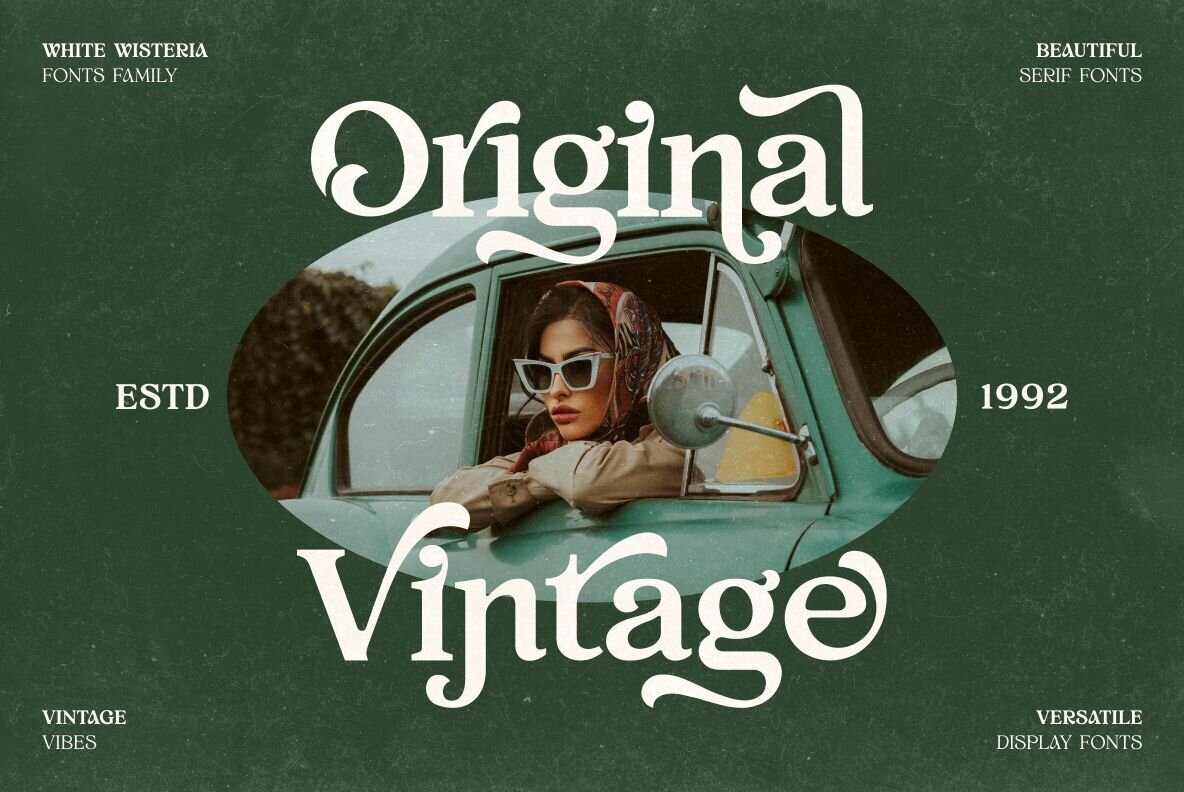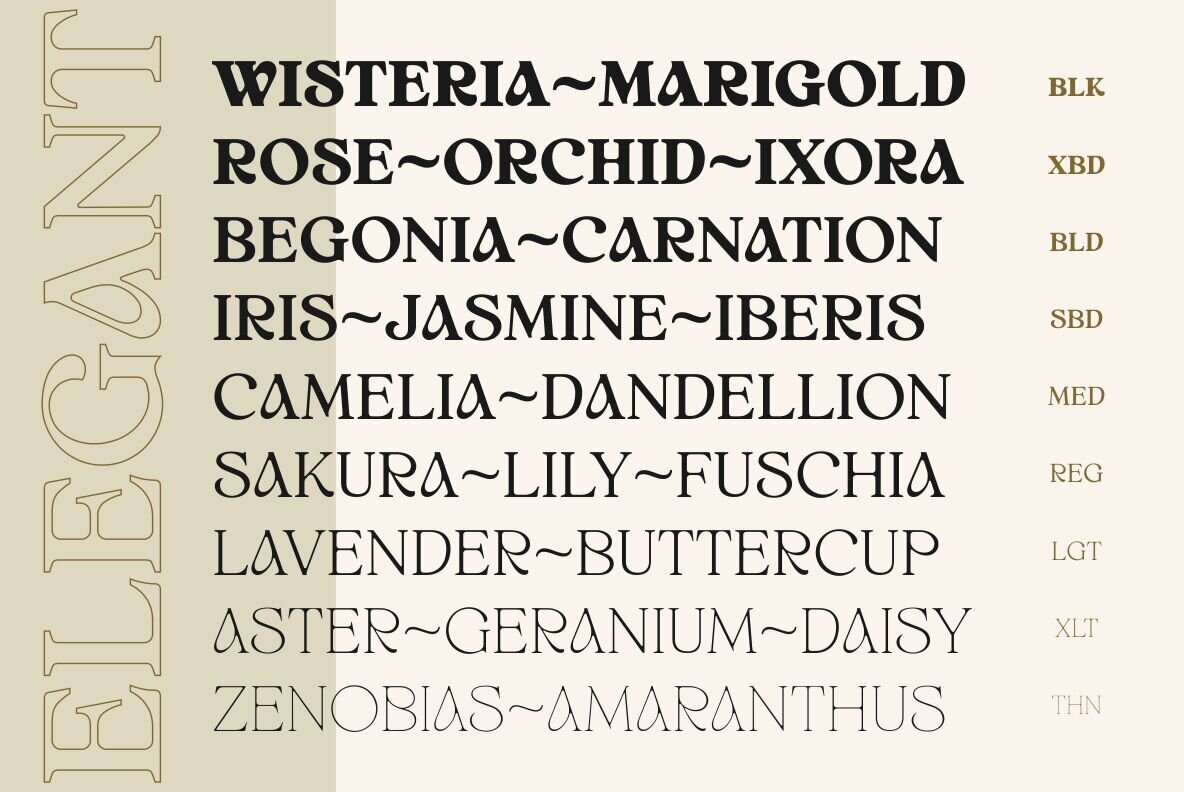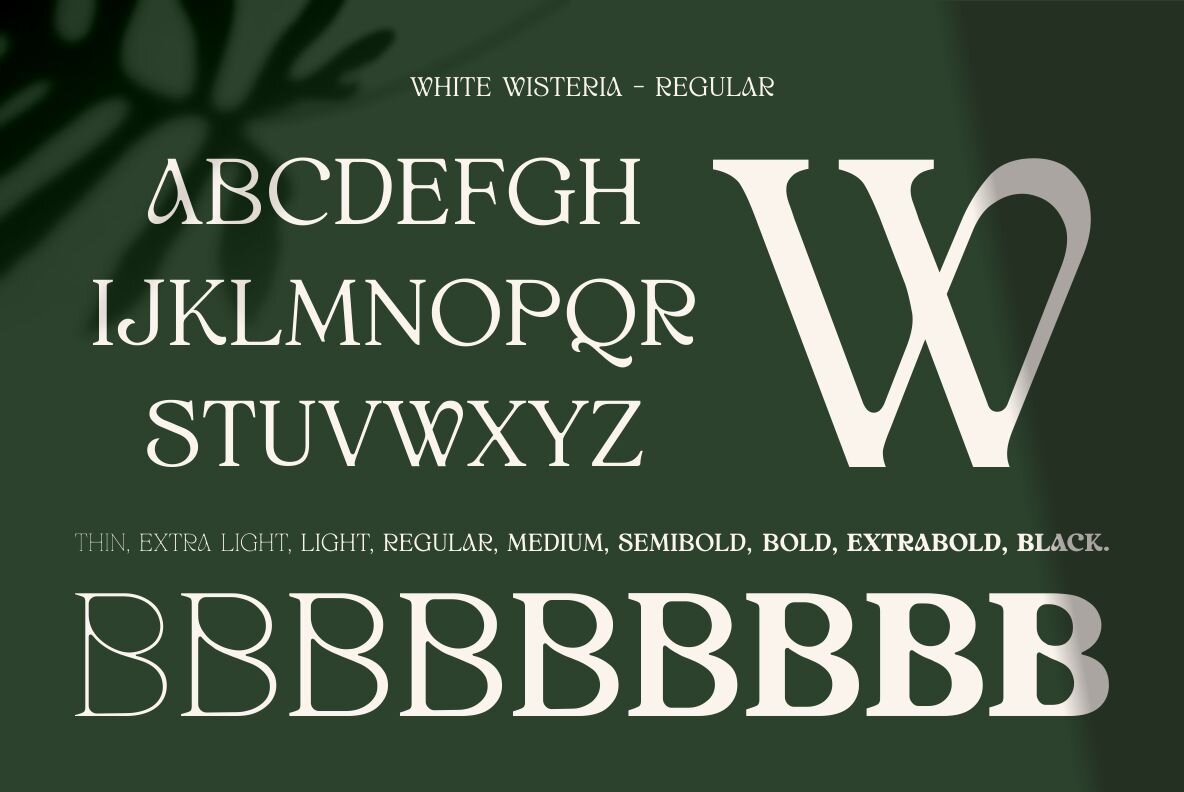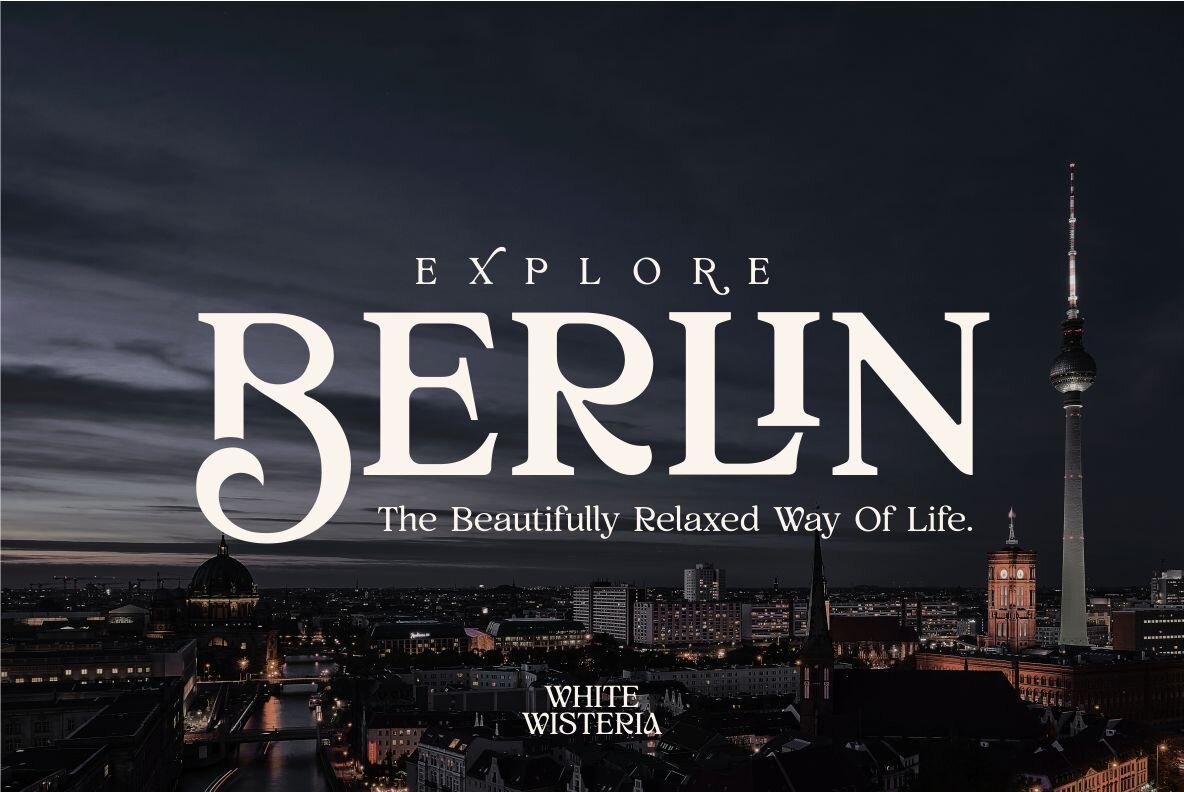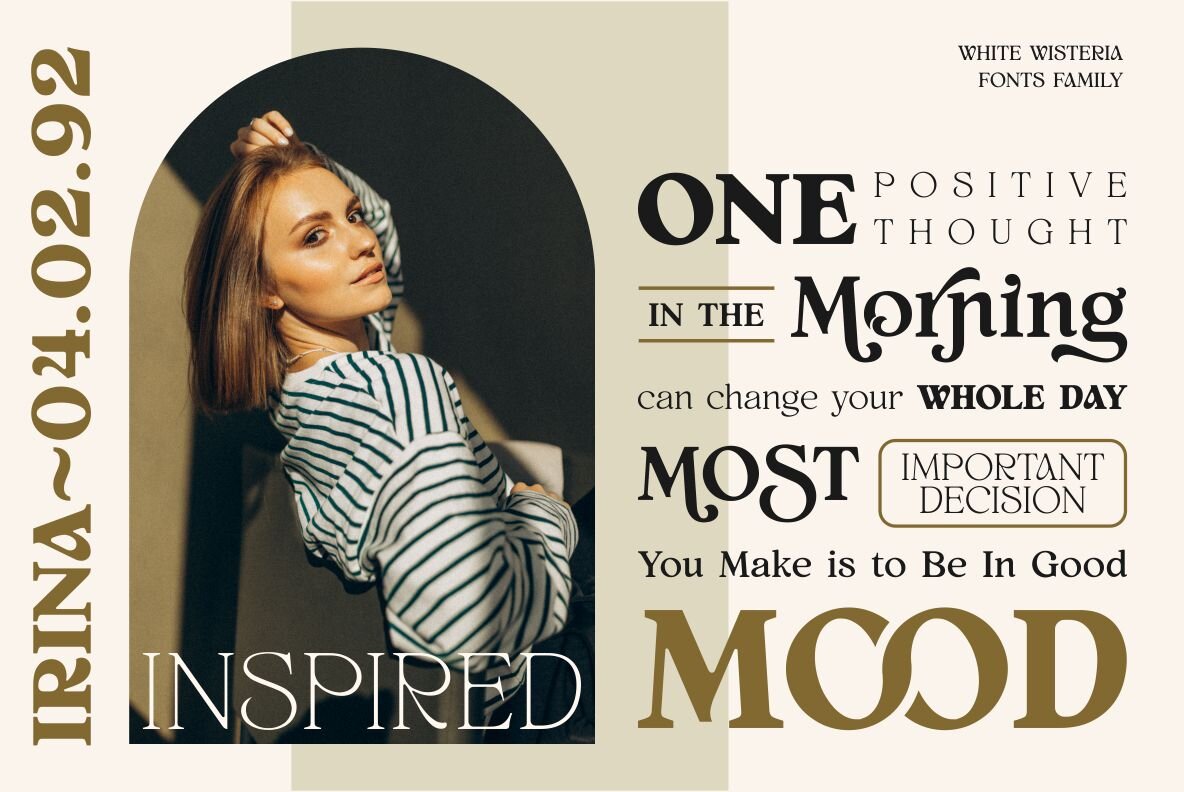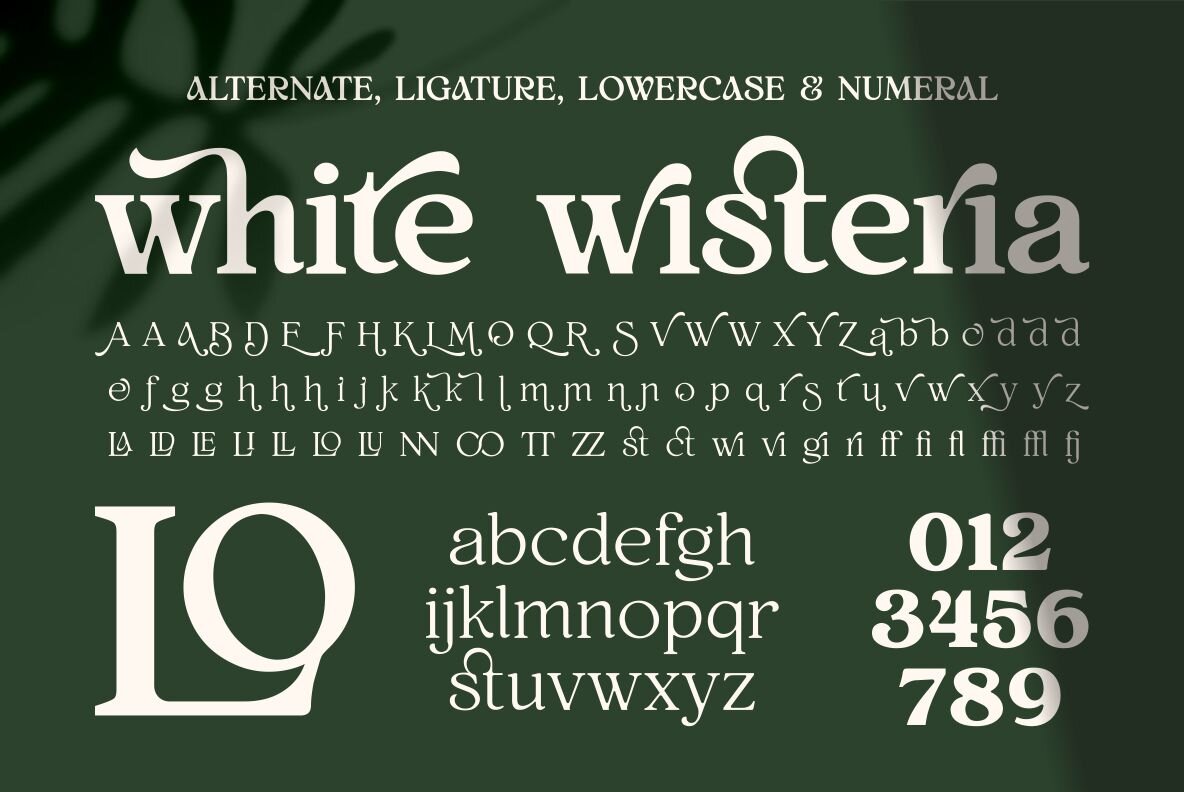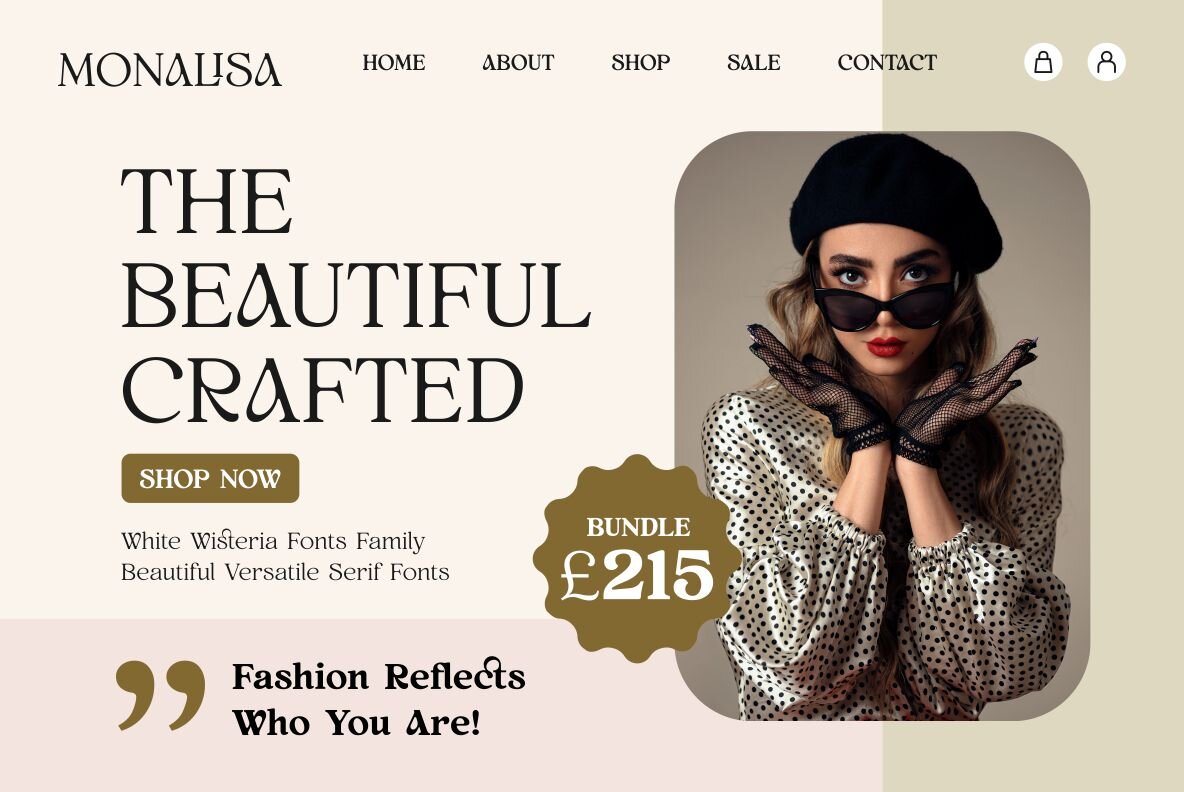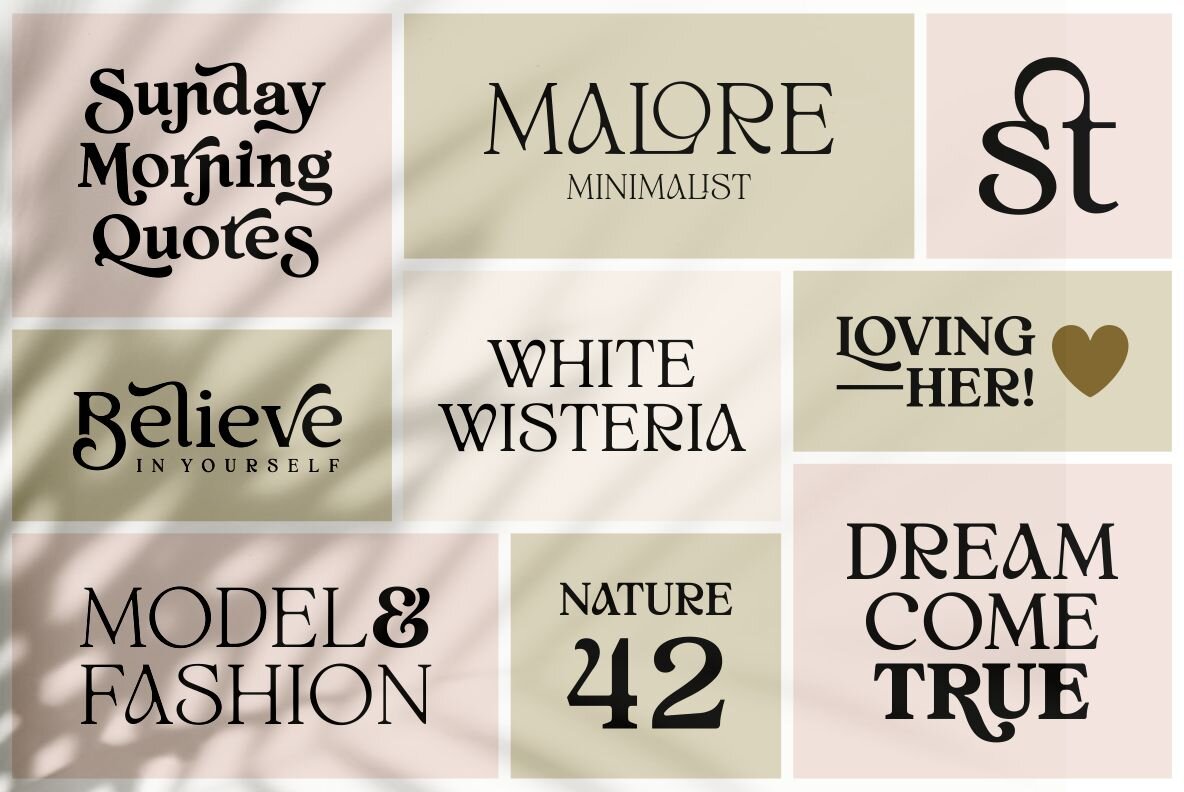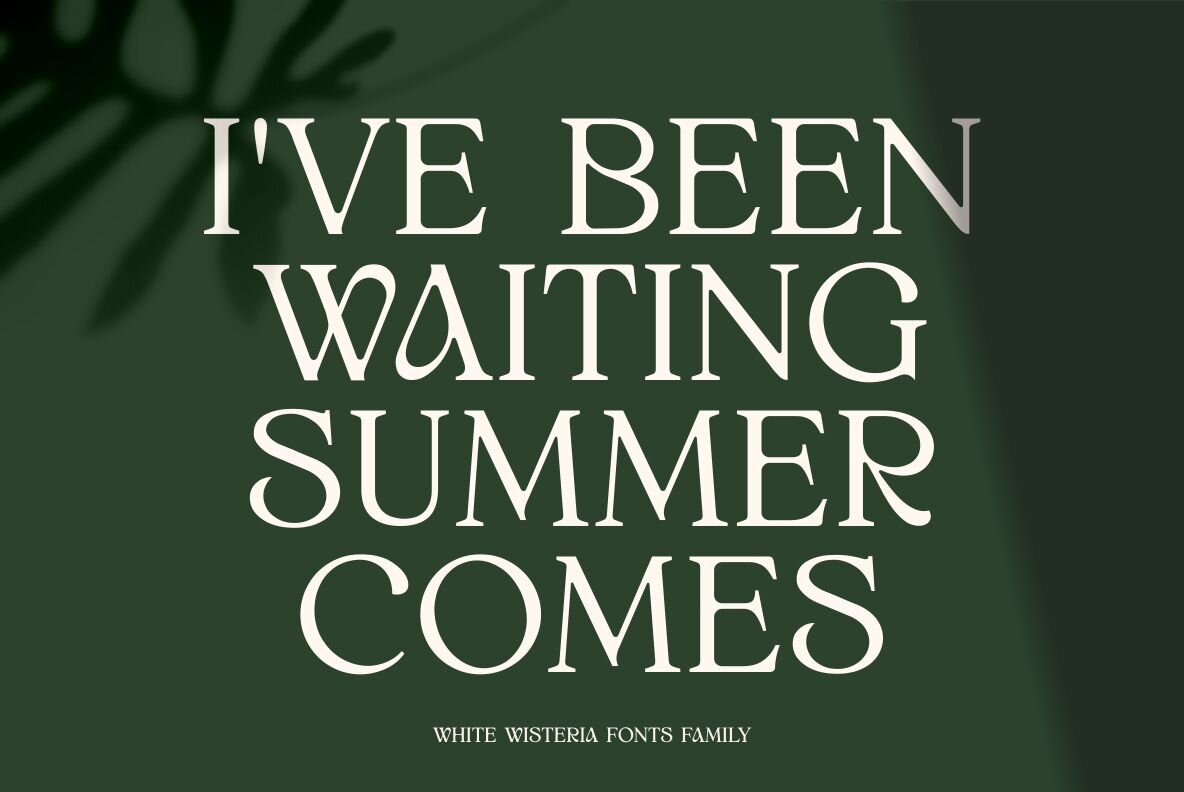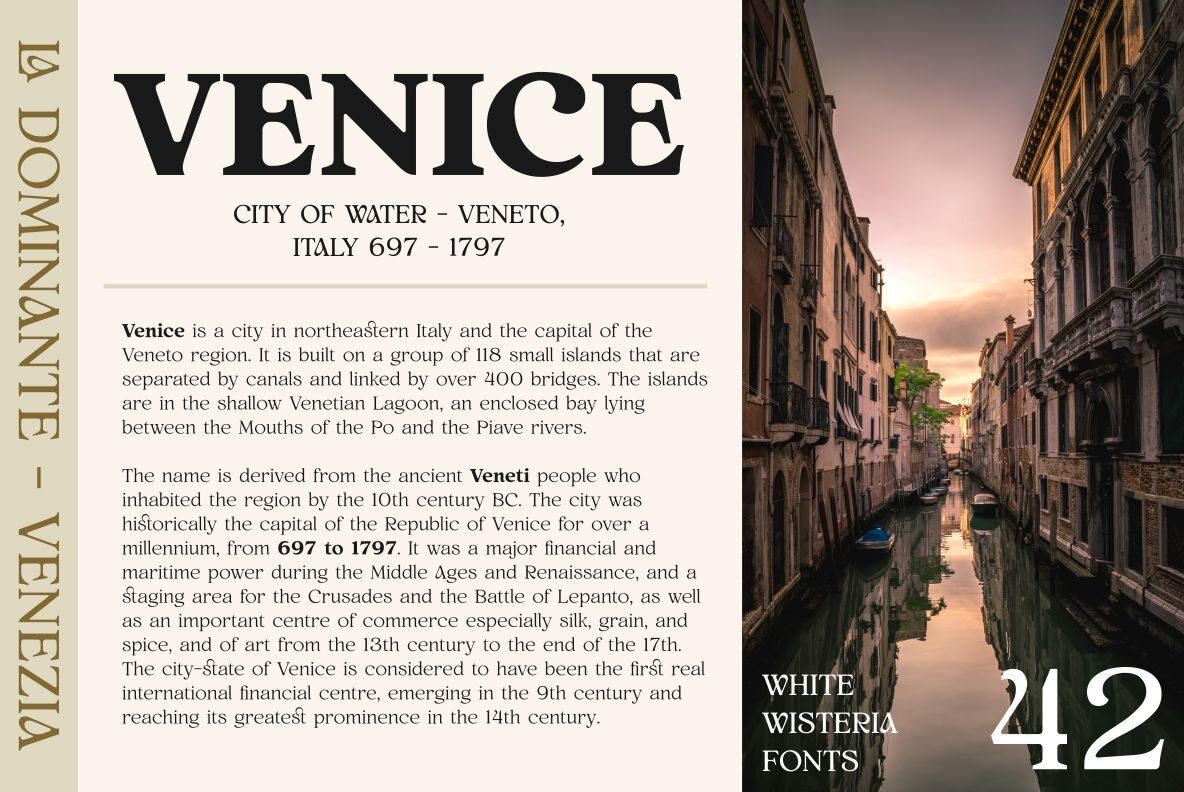
White Wisteria Font
White Wisteria, a sophisticated serif font family, offers nine styles suitable for vintage, classic, and retro aesthetics. The naturally curved proportions and softened edges lend a refined, luxurious touch to any design. Ideal for logos, branding, fashion, magazines, labels, posters, album covers, and more, White Wisteria provides a wide range of styles: Thin, Extra Light, Light, Regular, Medium, Semibold, Bold, Extra Bold, and Black. Each font includes OpenType Format (OTF), kerning, ligature style, alternative style, numerals, symbols, and multilingual support for diverse applications.